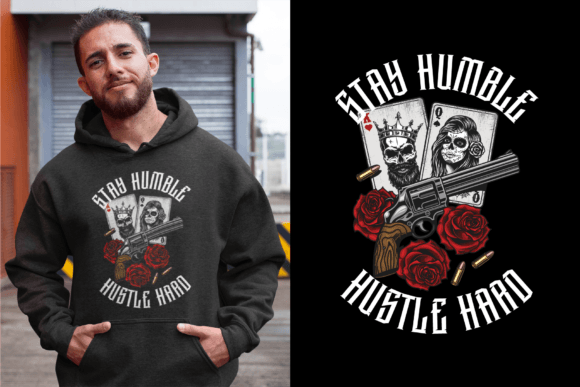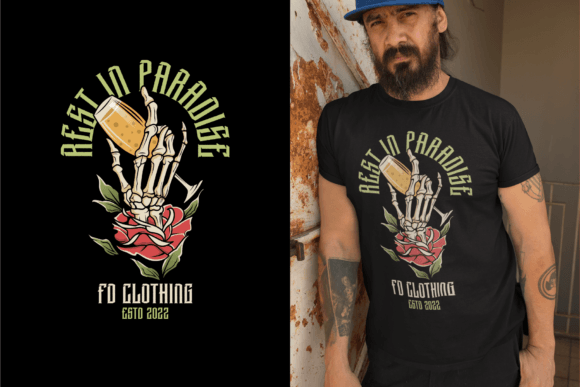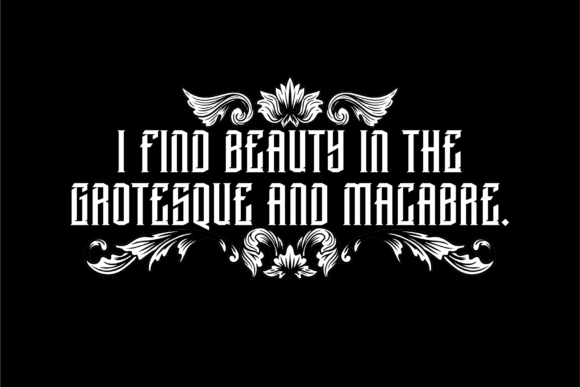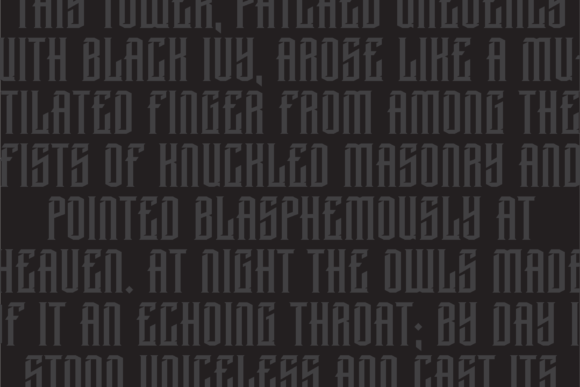
The Enraged Font: A Bold and Daring Blackletter Typeface
I’ll never forget the time I was working on a branding project for a craft beer company. My client wanted a label that would stand out on the shelves, something that screamed “bold” and “daring.” I spent hours scouring font websites, but nothing seemed quite right. That was until I stumbled upon the Enraged font. Its unique blackletter style and stylish features immediately caught my eye, and I knew I had found the perfect fit.
An Honest Review of Enraged Font
- 💥 **Bold and eye-catching**: Enraged font is perfect for making a statement. Its thick lines and dramatic flair make it impossible to ignore.
- ✅ **Highly versatile**: Whether you’re working on product packaging, branding, or a craft project, Enraged font adapts seamlessly to different contexts.
- 🎨 **Stylish features**: The font comes with a range of OpenType features, glyphs, and stylistic alternates that allow for endless creative experimentation.
- ⚠️ **Limited legibility**: As with many blackletter fonts, Enraged can be tricky to read at small sizes or in long blocks of text.
- ⚠️ **Not suitable for body text**: This font is best used for headlines, titles, or short phrases – it’s not designed for lengthy paragraphs.
One of the standout features of Enraged font is its range of OpenType features and glyphs. These allow you to customize your text and add unique touches to your design. Some common features include:
- Stylistic alternates: Swappable letters or symbols that offer alternative designs.
- Ligatures: Combined letters or symbols that create a single glyph.
- Glyphs: Additional symbols or ornaments that can be used to embellish your text.
The Backstory Behind Enraged Font
According to its creators, Enraged font was inspired by traditional blackletter typefaces, but with a modern twist. The designers aimed to create a font that was both bold and elegant, with a range of features that would make it versatile and adaptable. While the exact design process is unknown, it’s clear that Enraged font has been crafted with care and attention to detail.
Q: What is the Enraged font best used for?
A: Enraged font is perfect for bold, eye-catching designs like product packaging, branding, or titles. It’s not recommended for body text or long blocks of writing.
Q: Is Enraged font available in different weights or styles?
A: Currently, Enraged font is available in a single weight. However, its range of OpenType features and glyphs allows for a high degree of customization.